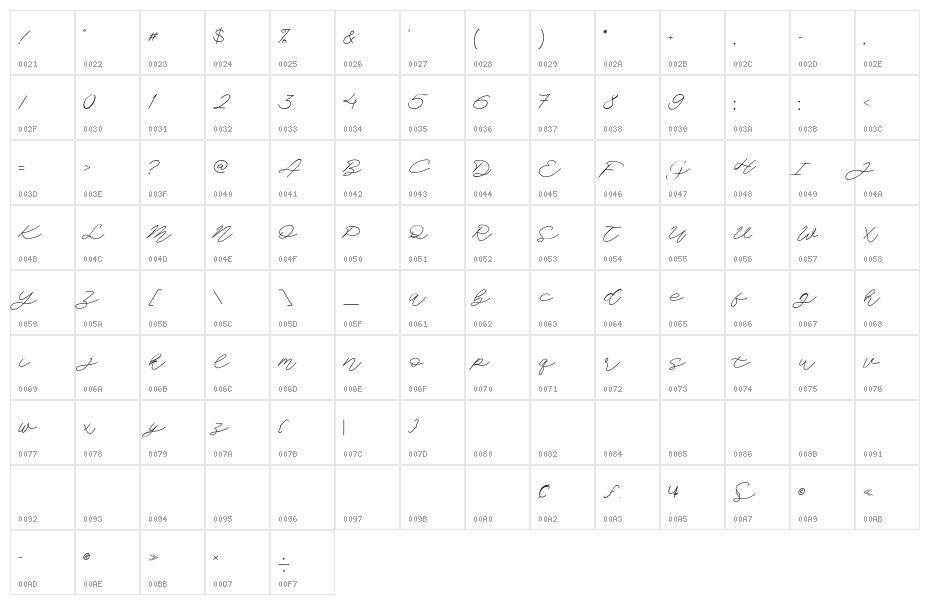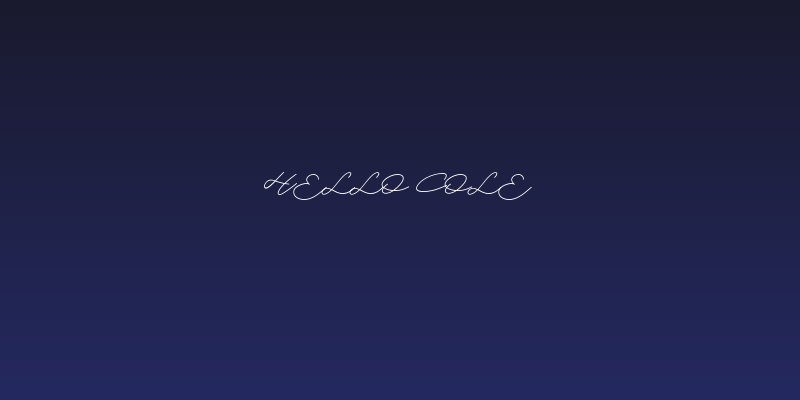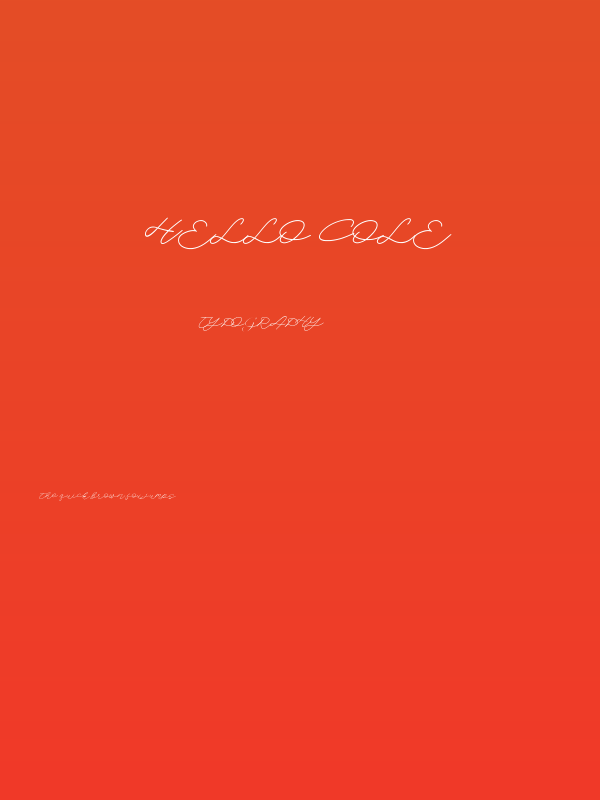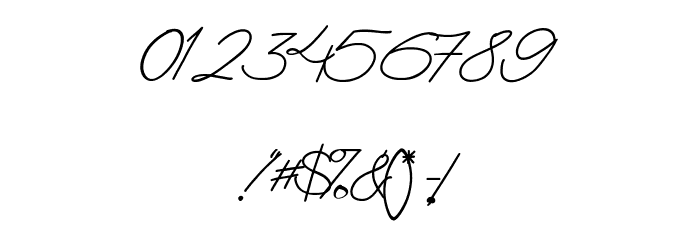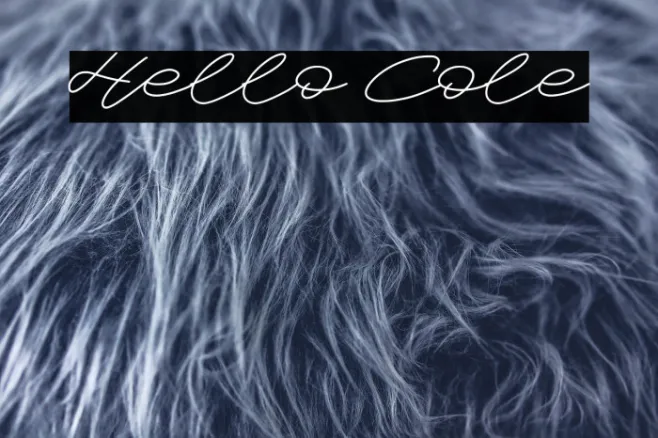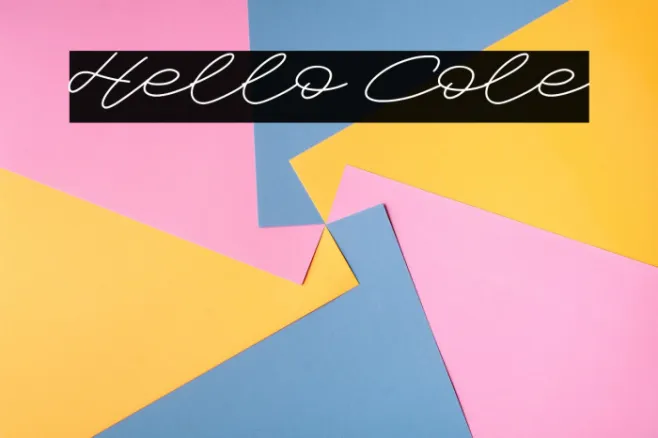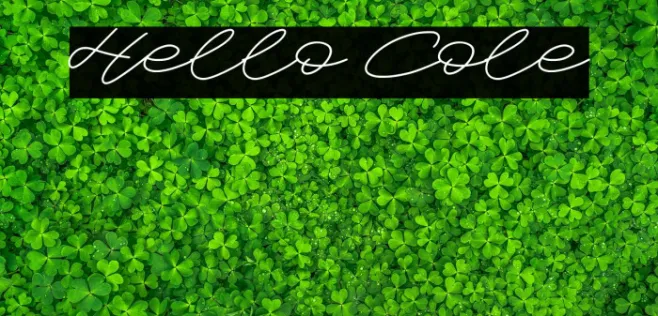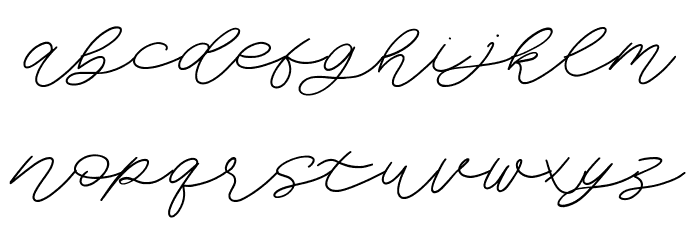
Hello Cole Font
Hello Cole Description
This font features a flowing, cursive script style that mimics elegant handwriting. The characters are interconnected with smooth, fluid strokes, creating a sense of continuity and grace. The uppercase letters are slightly larger and more ornate, while the lowercase letters maintain a consistent flow. The numbers and special characters are designed to match the overall aesthetic, with a delicate and sophisticated appearance. This font is perfect for projects that require a personal touch, such as invitations, greeting cards, or branding materials that aim to convey elegance and sophistication.
| Use Case | Headlines, Invitations, Personal Branding |
| Proposed Projects | Ideal for wedding invitations, personal branding, greeting cards, and elegant stationery. |